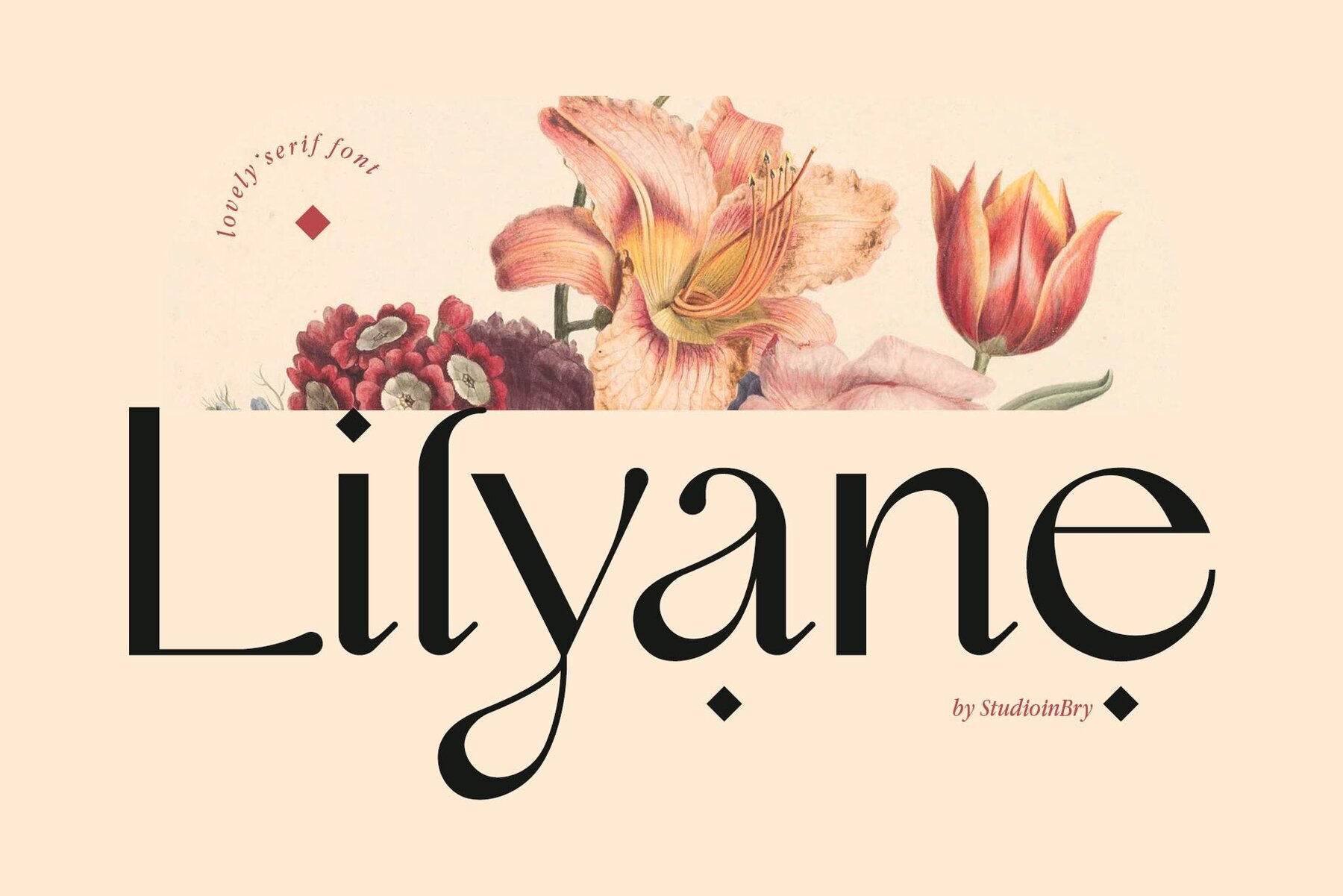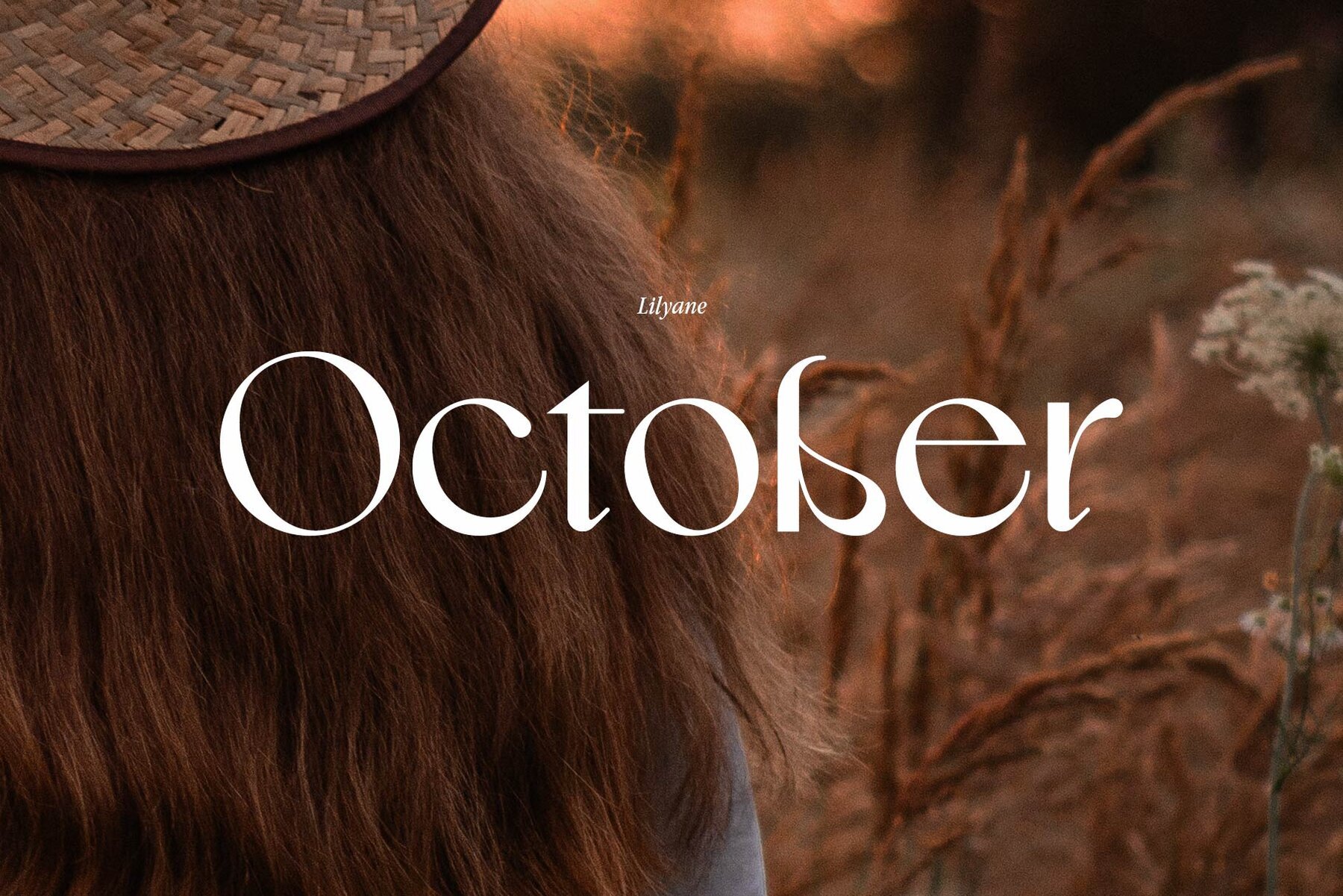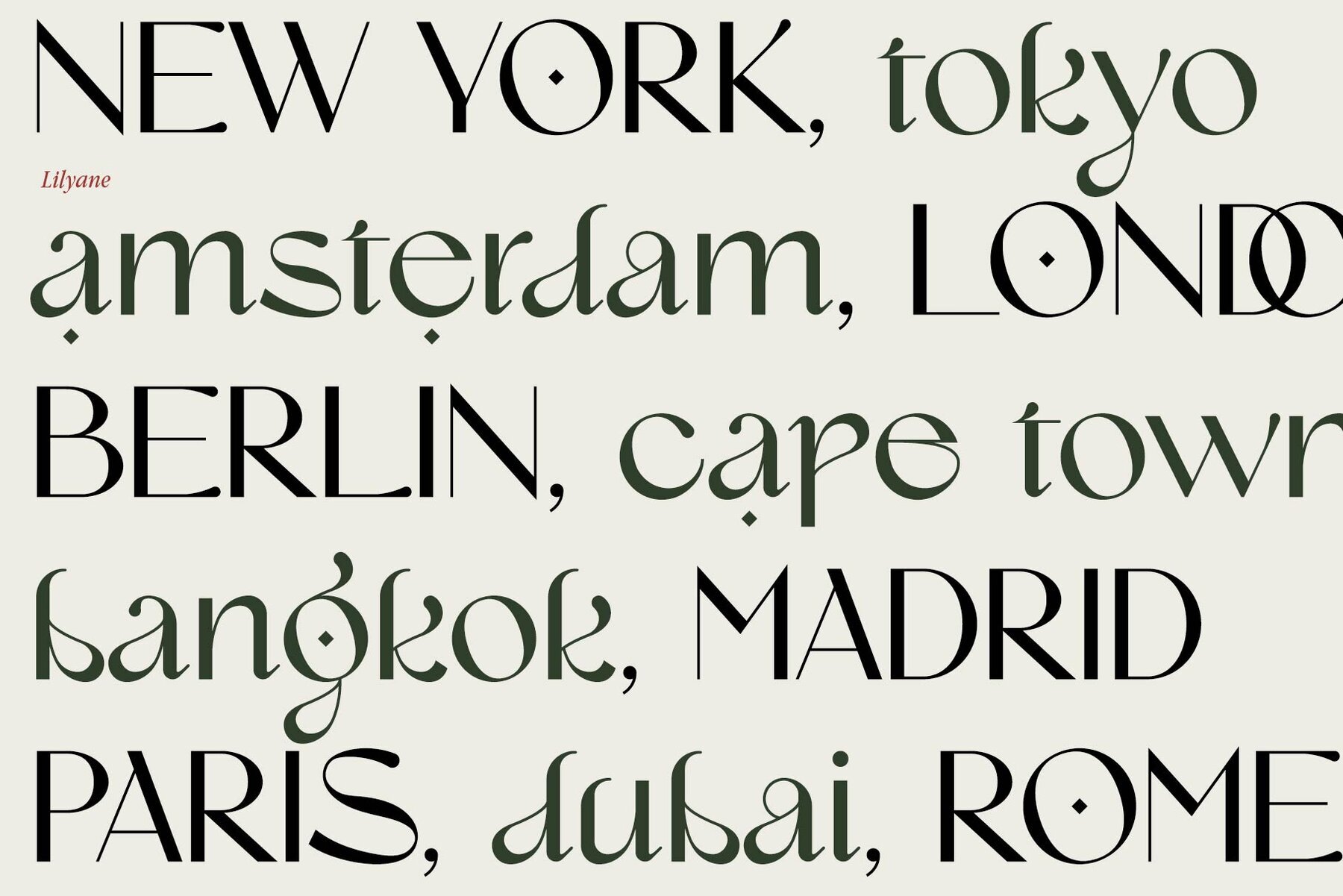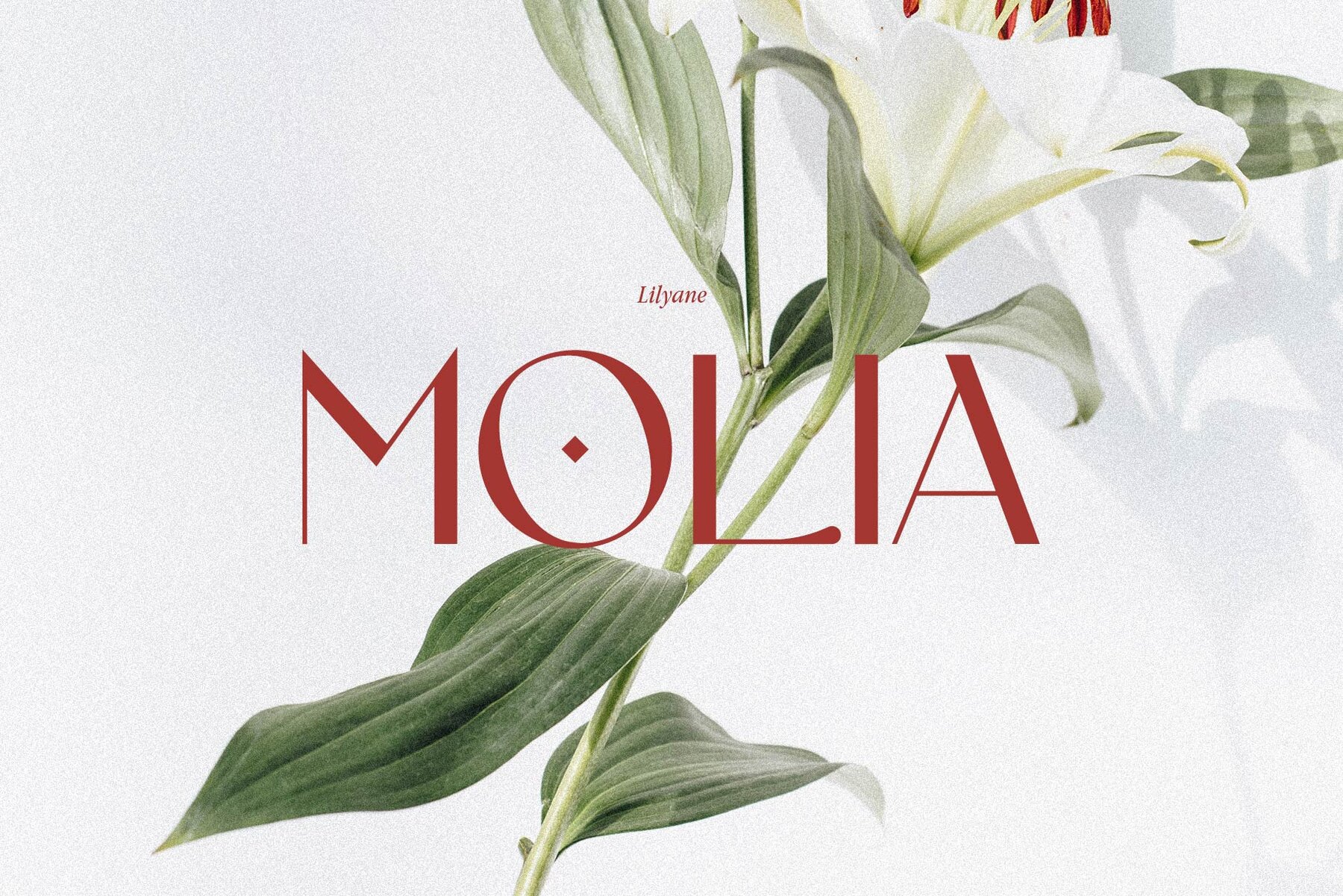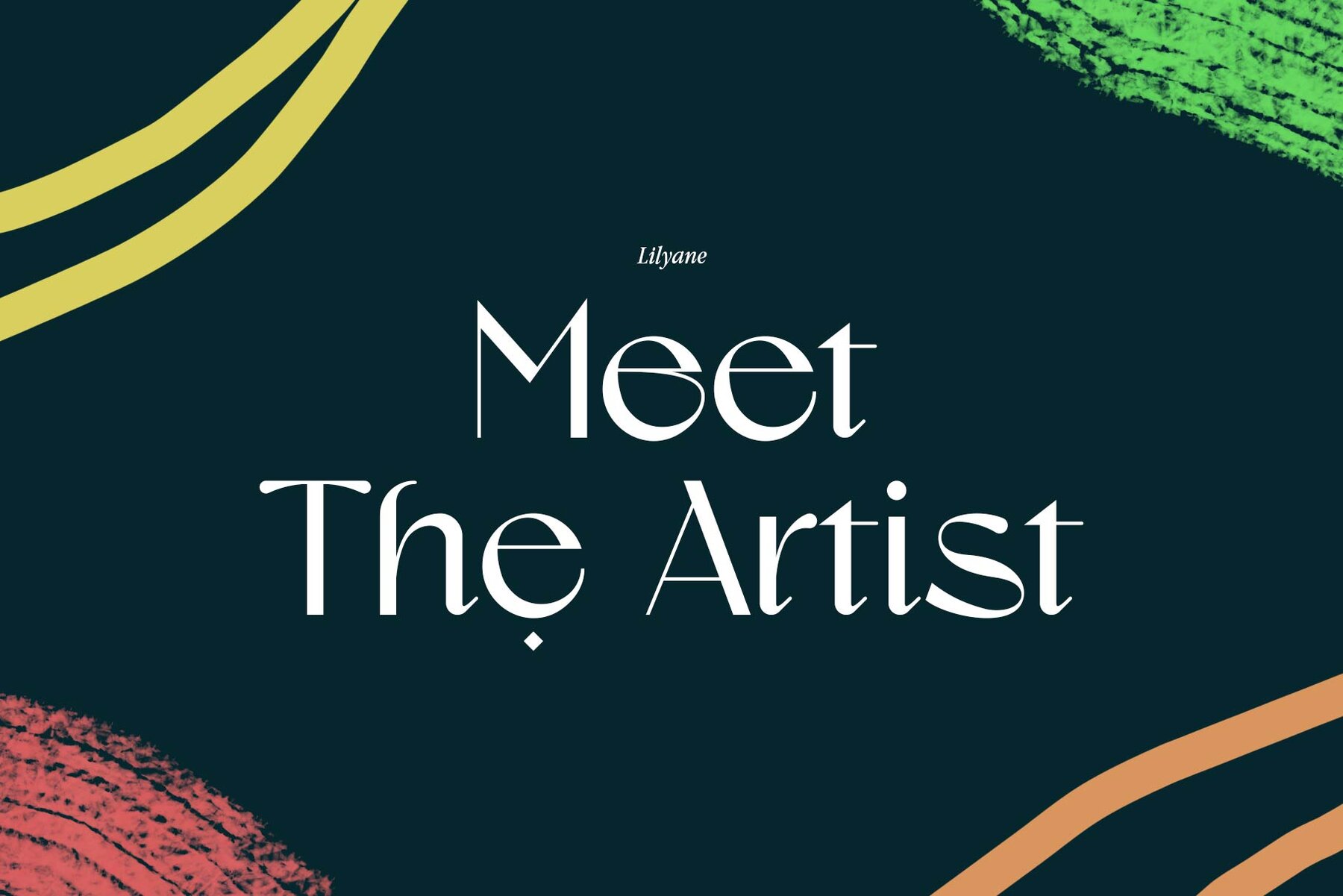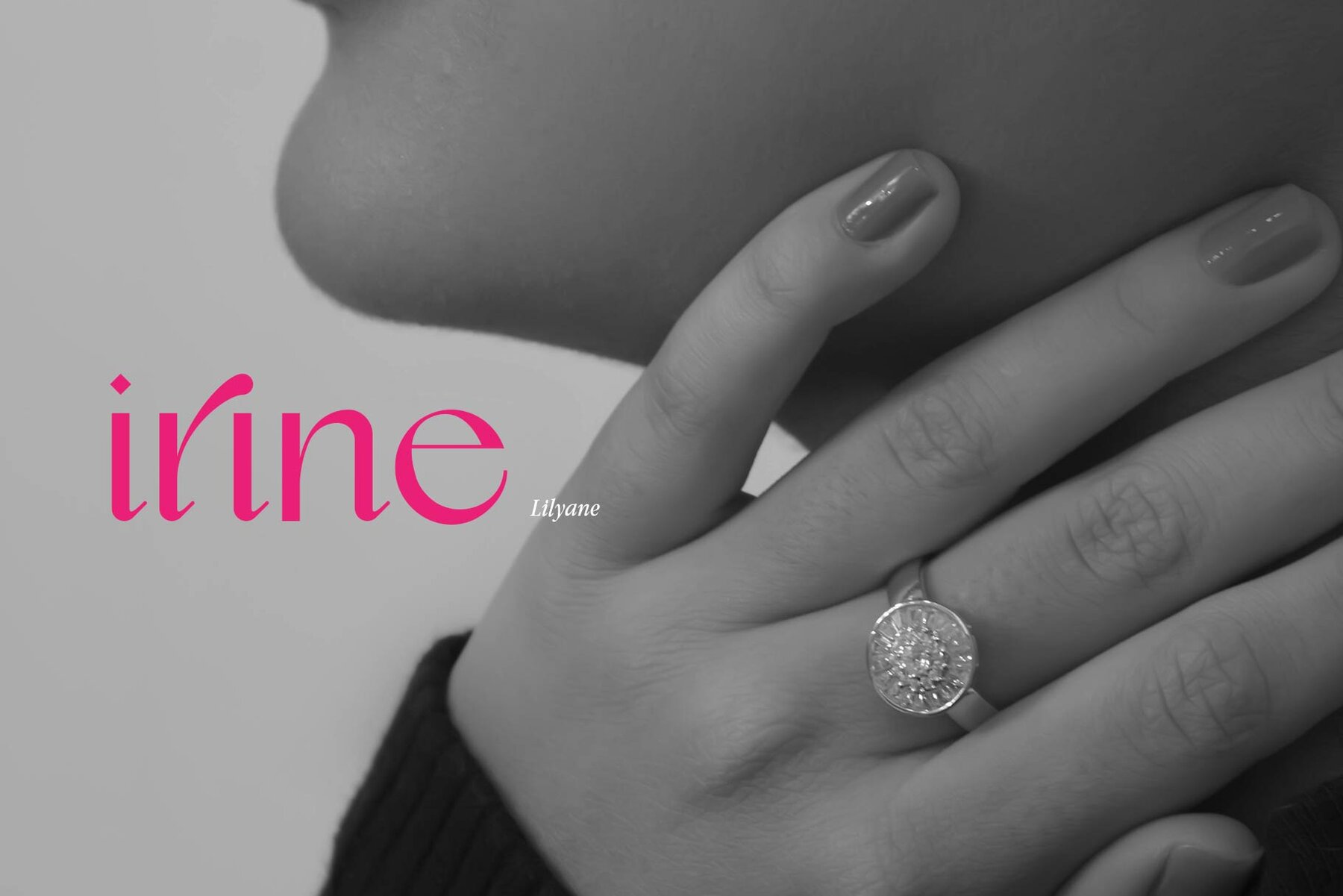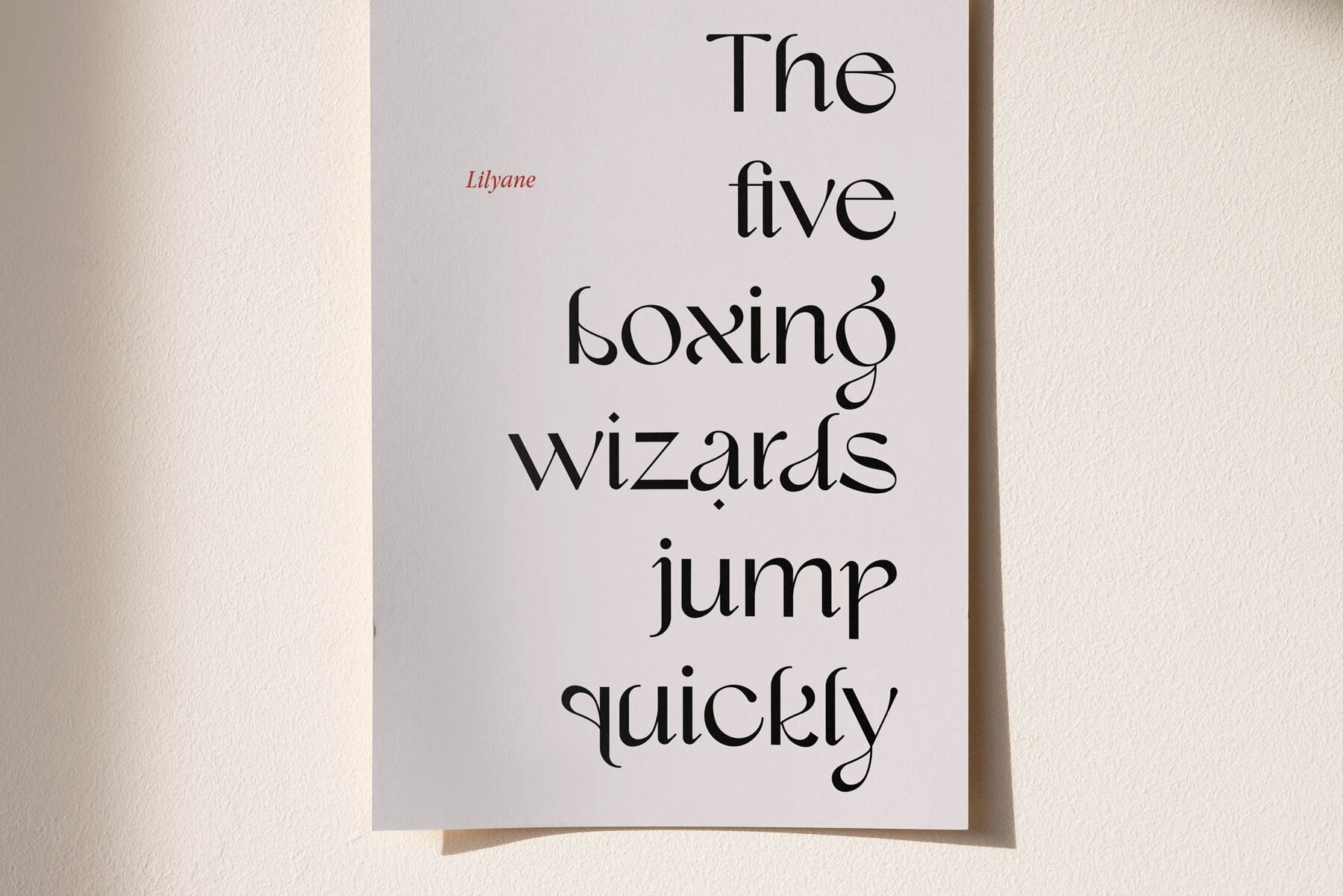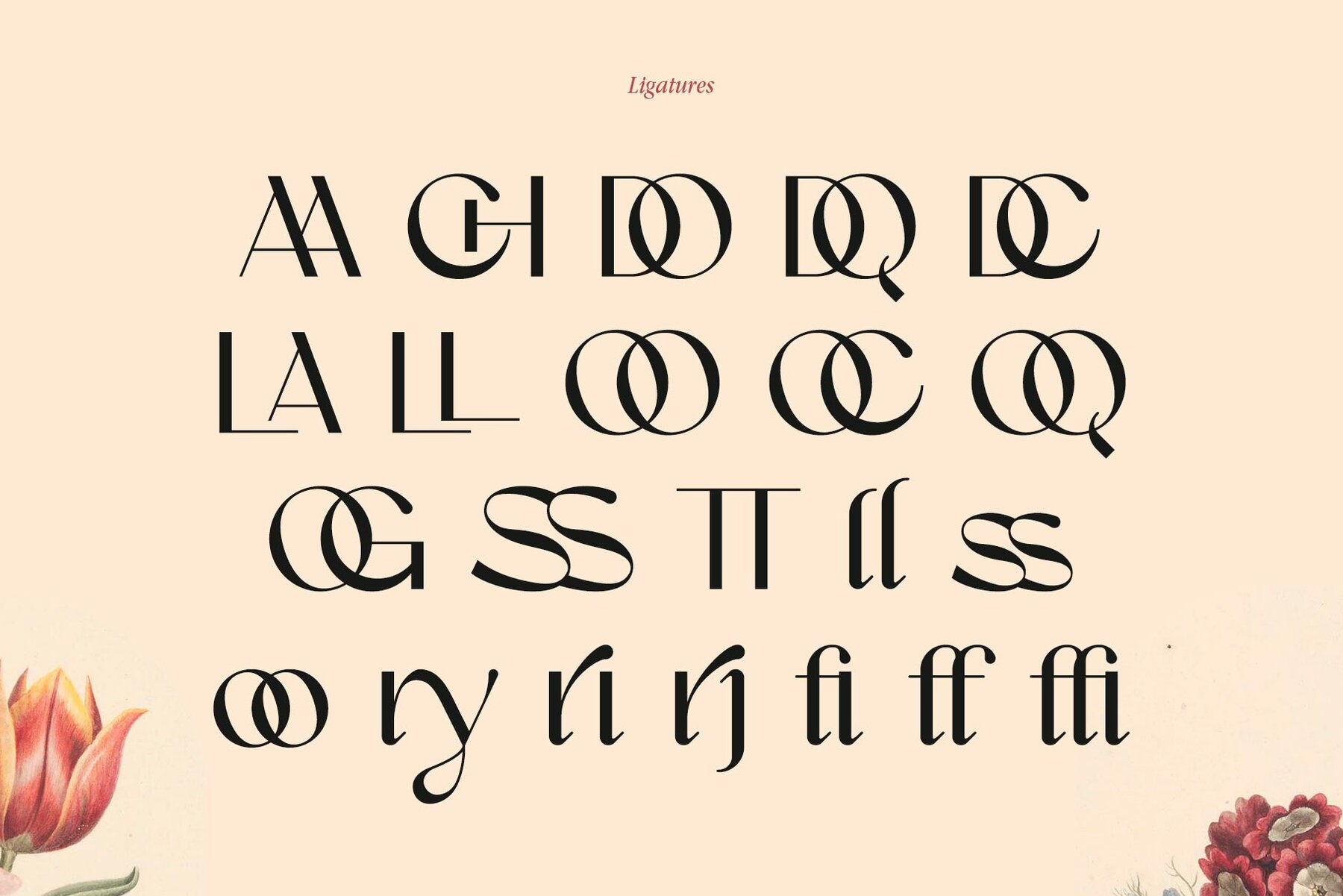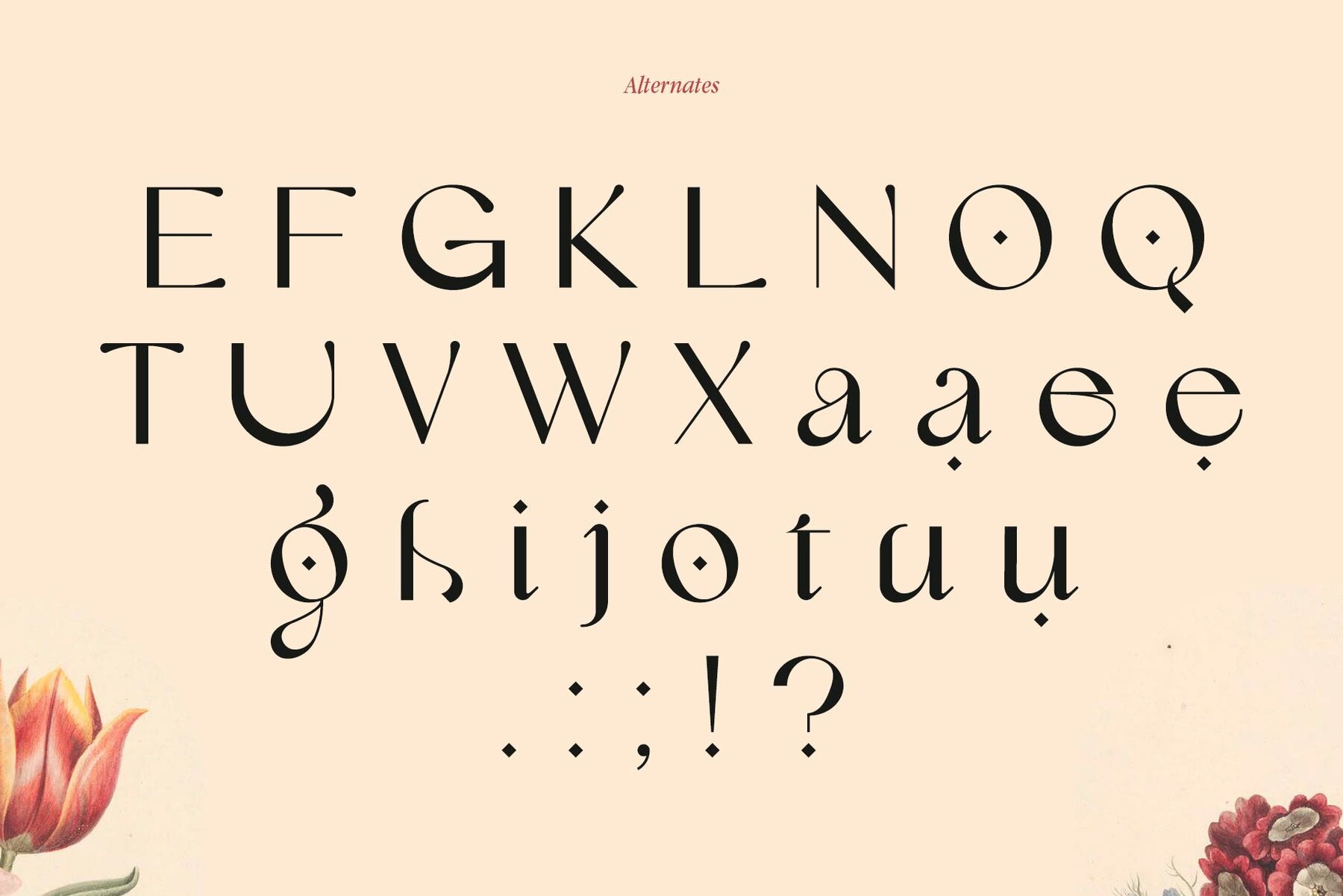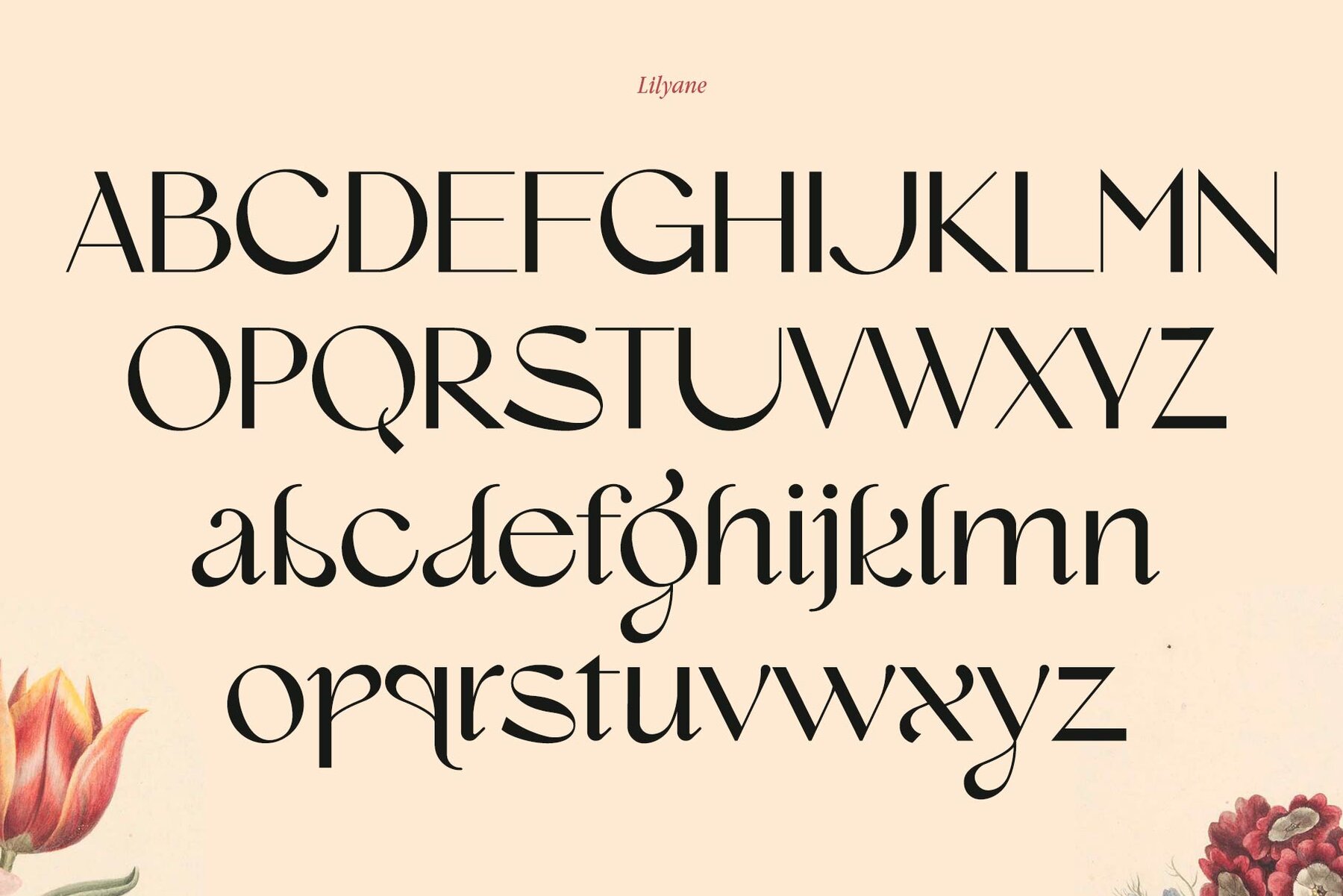
Lilyane: A Modern Display Serif
Lilyane captures the perfect harmony of elegance and modernity, making it an exquisite choice for any graphic designer seeking sophistication in their work. Ideal for revitalizing branding, social media graphics, posters, and packaging.
• Comprehensive Glyph Set – Includes uppercase, lowercase, numbers, and punctuation.
• Artful Details – Offers alternates and ligatures for customized typography.
• Global Reach – Supports Latin multilingual characters.